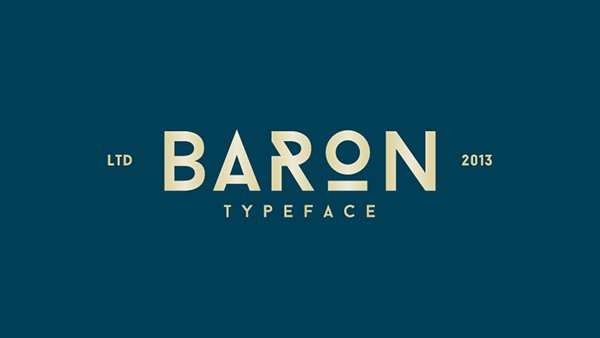
Baron Neue Typefamily
Baron is an uppercase display typeface inspired by the classic sans serif font family’s. This typeface is, because of his many alternative options, perfect for usage in posters and headlines. Free for personal usage!